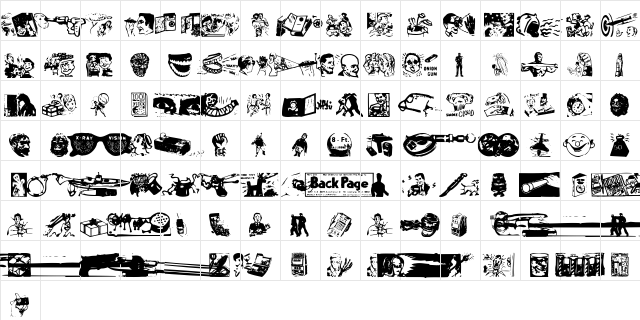
BackPage Regular Font Preview
BackPage Regular
Design Context for BackPage Typeface
BackPage is a composed and adaptable typeface that performs quietly and consistently across a wide range of design contexts.